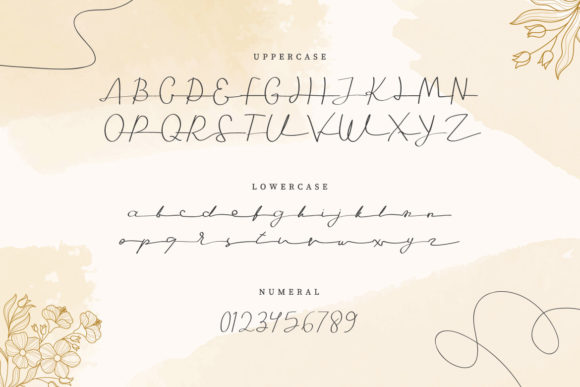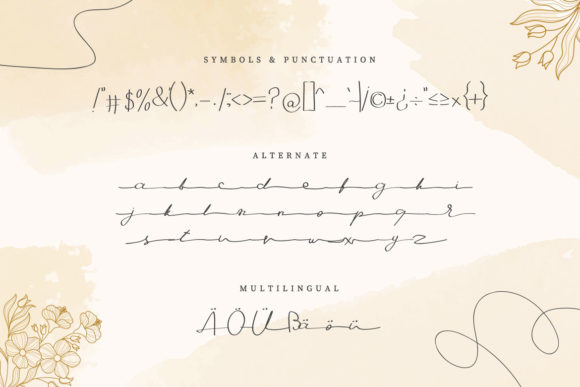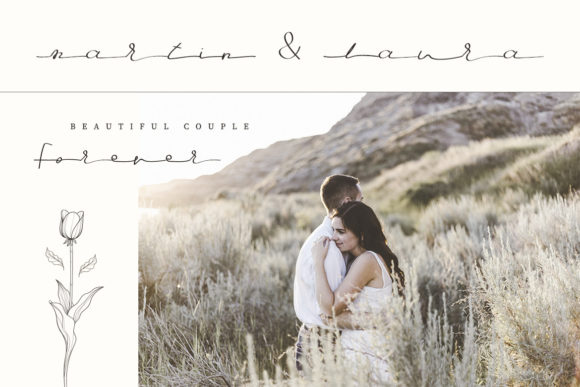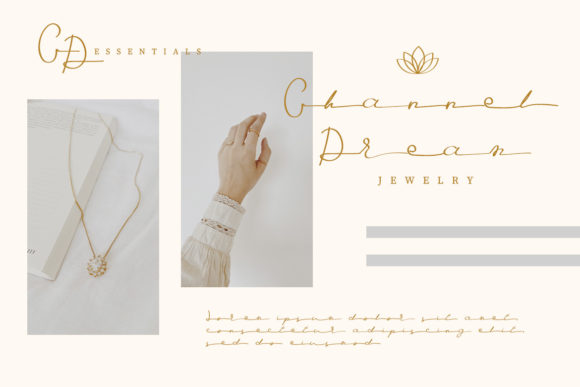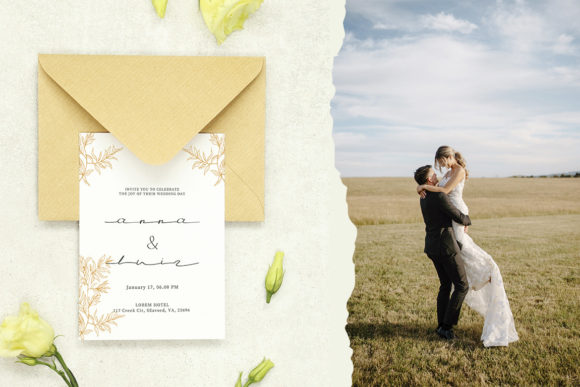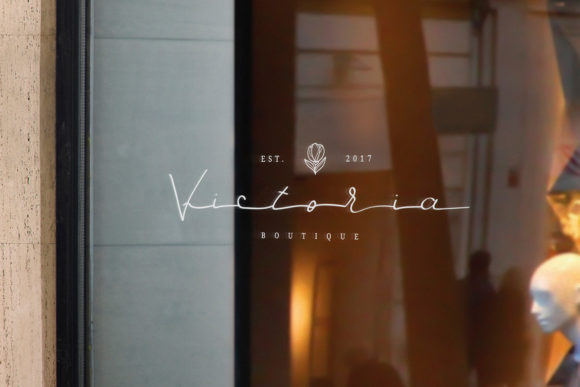
Introduction to Seledina Font
Seledina is a delicate, elegant and flowing handwritten font.
It has beautiful and well balanced characters and as a result, it matches a wide pool of designs Add it confidently to your projects, and you will love the results.